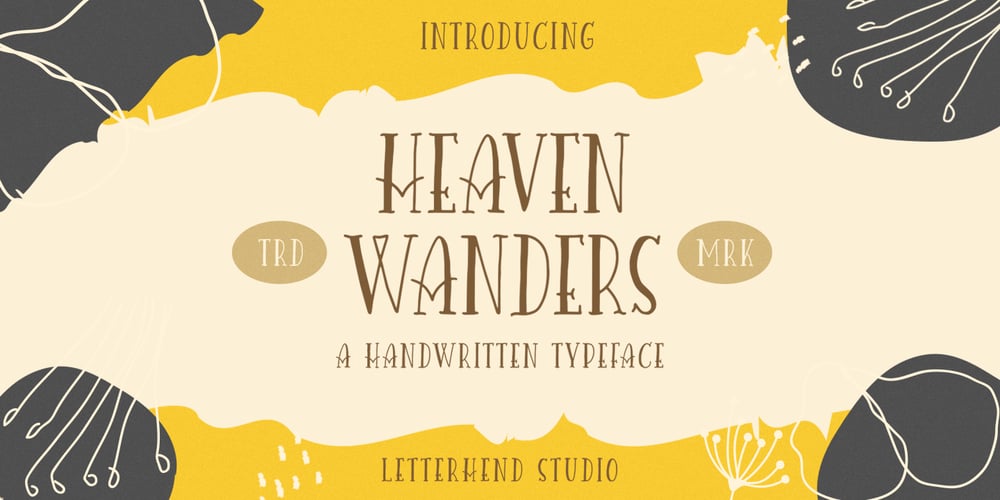
Heaven Wanders
Heaven Wanders font
Heaven Wanders Font Family was designed by Hendry Juanda and published by Letterhend. Heaven Wanders contains 2 styles and family package options. Introducing, Heaven Wanders, a unique handwritten typeface. There are two style with regular and slant. As you can see, this typeface has playful and fun look which is perfectly made to be applied especially in storybook cover, comics, cartoon characters, kids theme design, etc.Features : uppercase & lowercase numbers and punctuation multilingual alternates PUA encoded We highly recommend using a program that supports OpenType features and Glyphs panels like many of Adobe apps and Corel Draw, so you can see and access all Glyph variations. How to access opentype feature : letterhend.com/tutorials/using-opentype-feature-in-any-software/Email us to letterhend@gmail.com if you need something! Happy Designing!